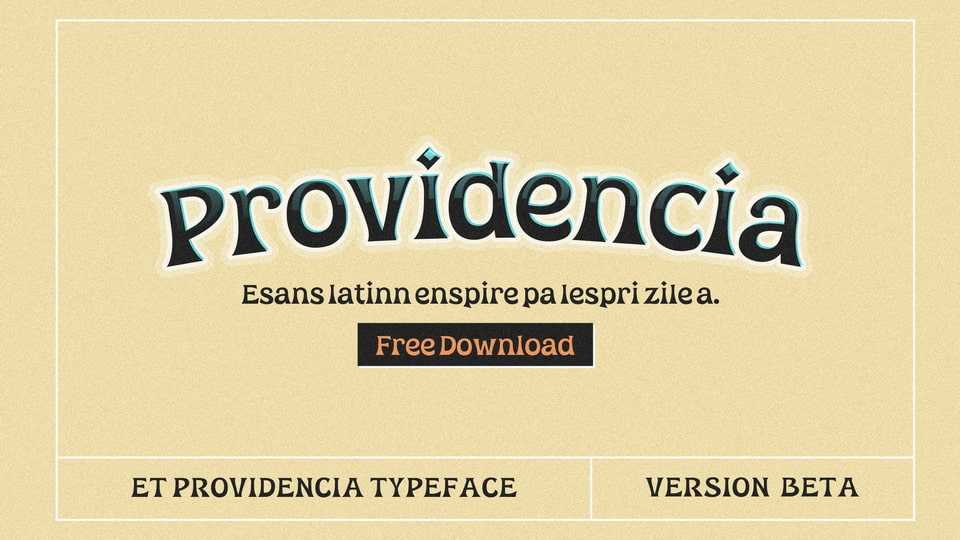
Download ET Providencia font, a warm and expressive typeface that radiates a handmade aesthetic with a delightful vintage flair, blending imperfect strokes with an elegant flow